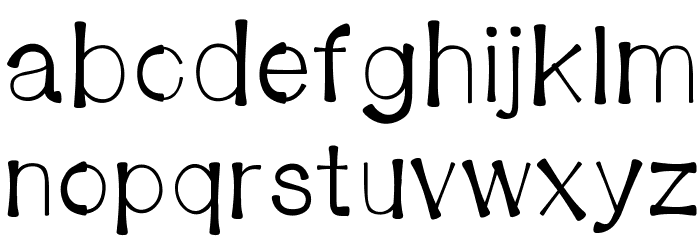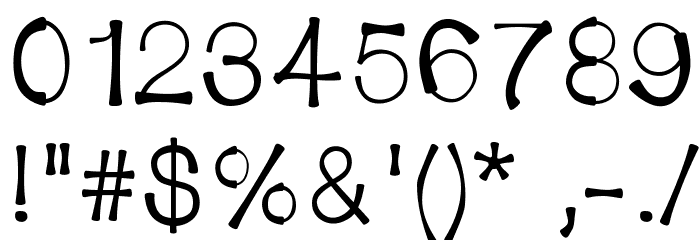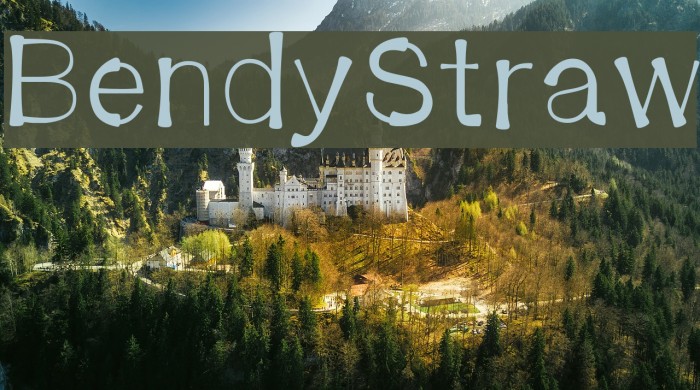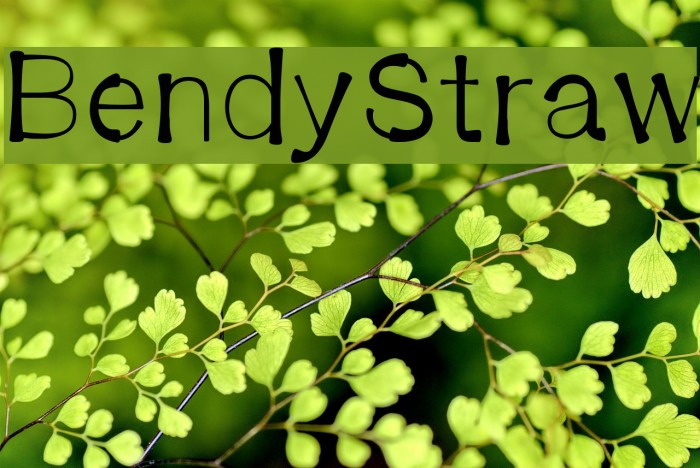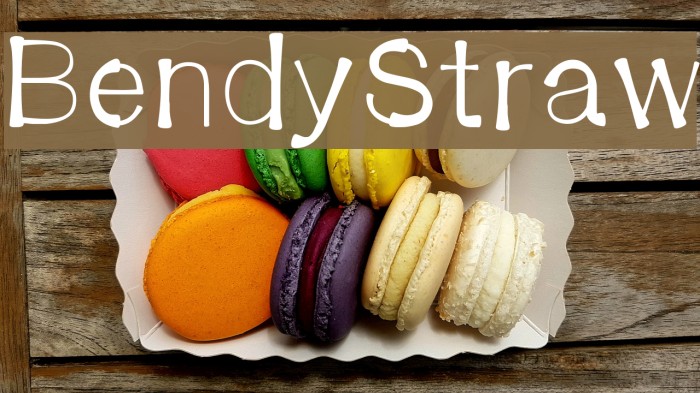
BendyStraw Font
This playful and whimsical font features a hand-drawn aesthetic with irregular, wavy lines that give it a unique, casual appearance. The characters are slightly uneven, with varying stroke thicknesses that add to its charm. The uppercase letters are bold and prominent, while the lowercase letters maintain a consistent style, offering a cohesive look across all text. Numbers and special characters follow the same playful design, making this font versatile for creative projects. Its distinctive style makes it ideal for projects that require a fun, informal touch.
A playful, hand-drawn font with irregular, wavy lines and varying stroke thickness.
- Proposed Projects: Ideal for children's books, playful branding, casual invitations, and creative posters.